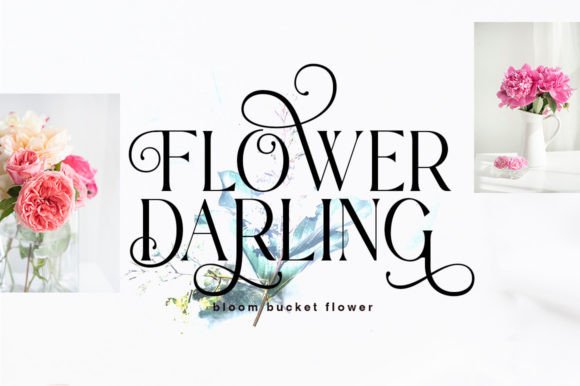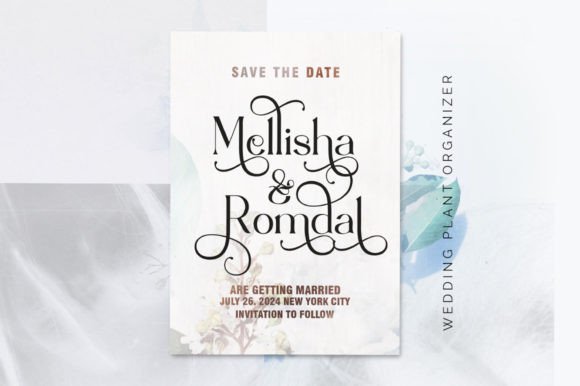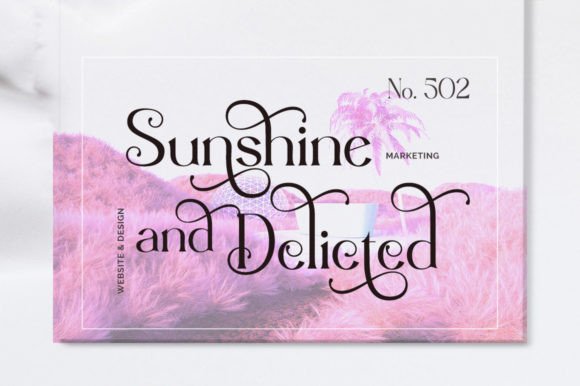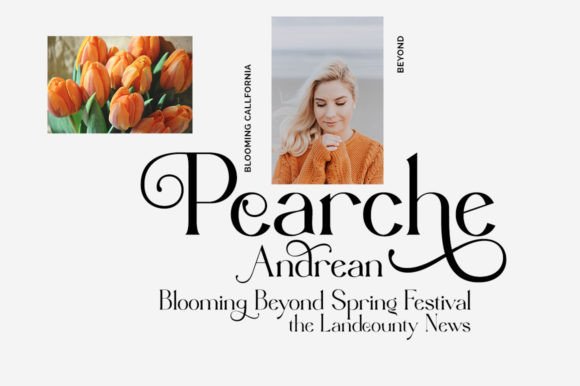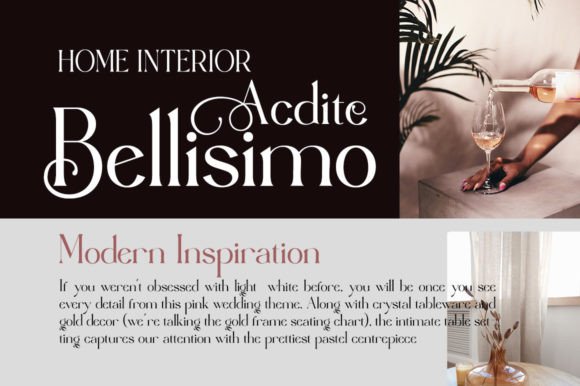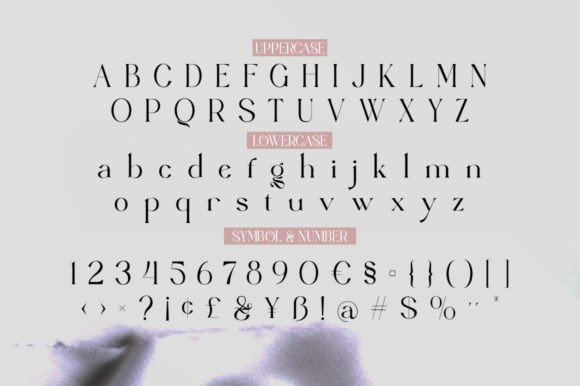
Introducing Angrela Font: Elevate Your Designs with Luxury and Elegance
In the world of typography, fonts play a crucial role in conveying the tone and personality of a brand or design. For designers and crafters seeking to add a touch of luxury, elegance, and modernity to their projects, Angrela Font is an exceptional choice. This stunning ornament serif font boasts a charming, unique, and classy appearance, making it perfect for a wide range of applications.
What is Angrela Font?
Angrela Display is an exquisite ornament serif font designed to make a statement. Its elegant and modern design ensures that your projects stand out from the crowd, exuding sophistication and refinement. Whether you’re working on fancy themed projects, branding initiatives, magazines, social media content, logos, website headers, or simply looking to add a stylish text overlay to a background image, Angrela Font is the ideal solution.
Key Features of Angrela Font
Angrela Font comes with a comprehensive set of features that make it incredibly versatile and user-friendly. Some of the key features include:
- Stylistic Alternatives: Offers a range of stylistic alternatives to help you customize your text and adapt it to your project’s specific needs.
- Swash: Includes swash characters for added flair and elegance, allowing you to create unique and eye-catching text.
- Uppercase and Lowercase: Features both uppercase and lowercase letters, providing flexibility in your typography.
- Multilingual Character: Supports multiple languages, making it a great choice for global brands or projects with diverse audiences.
- Number and Punctuation: Comes with a complete set of numbers and punctuation marks, ensuring you have everything you need to create polished text.
Who Can Benefit from Angrela Font?
Angrela Font is a valuable asset for a wide range of professionals and designers, including:
- Graphic Designers: Looking for a luxurious and modern font to elevate their branding, advertising, or editorial projects.
- Branding Experts: Seeking to create a unique and memorable identity for their clients or businesses.
- Digital Content Creators: Aiming to add a touch of elegance and sophistication to their social media content, blogs, or websites.
- Crafters and Makers: Working on high-end packaging, labels, or promotional materials that require a distinctive and classy look.
Tips for Using Angrela Font Effectively
To get the most out of Angrela Font, consider the following tips:
- Pair with Neutral Backgrounds: Let Angrela Font be the focal point by pairing it with simple, neutral backgrounds that won’t compete with the text.
- Experiment with Swashes: Use the swash characters to add a personal touch and create unique text variations.
- Mix and Match: Combine Angrela Font with other fonts to create visual interest and hierarchy in your designs.
- Adjust Size and Color: Play with the font size and color to achieve the desired level of luxury and elegance for your project.
Angrela Font is a stunning ornament serif font that offers a perfect blend of luxury, elegance, and modernity. Its comprehensive set of features, including stylistic alternatives, swash characters, and multilingual support, make it an excellent choice for designers and crafters looking to elevate their projects. Whether you’re working on branding, editorial, or digital content, Angrela Font is sure to make a lasting impression.